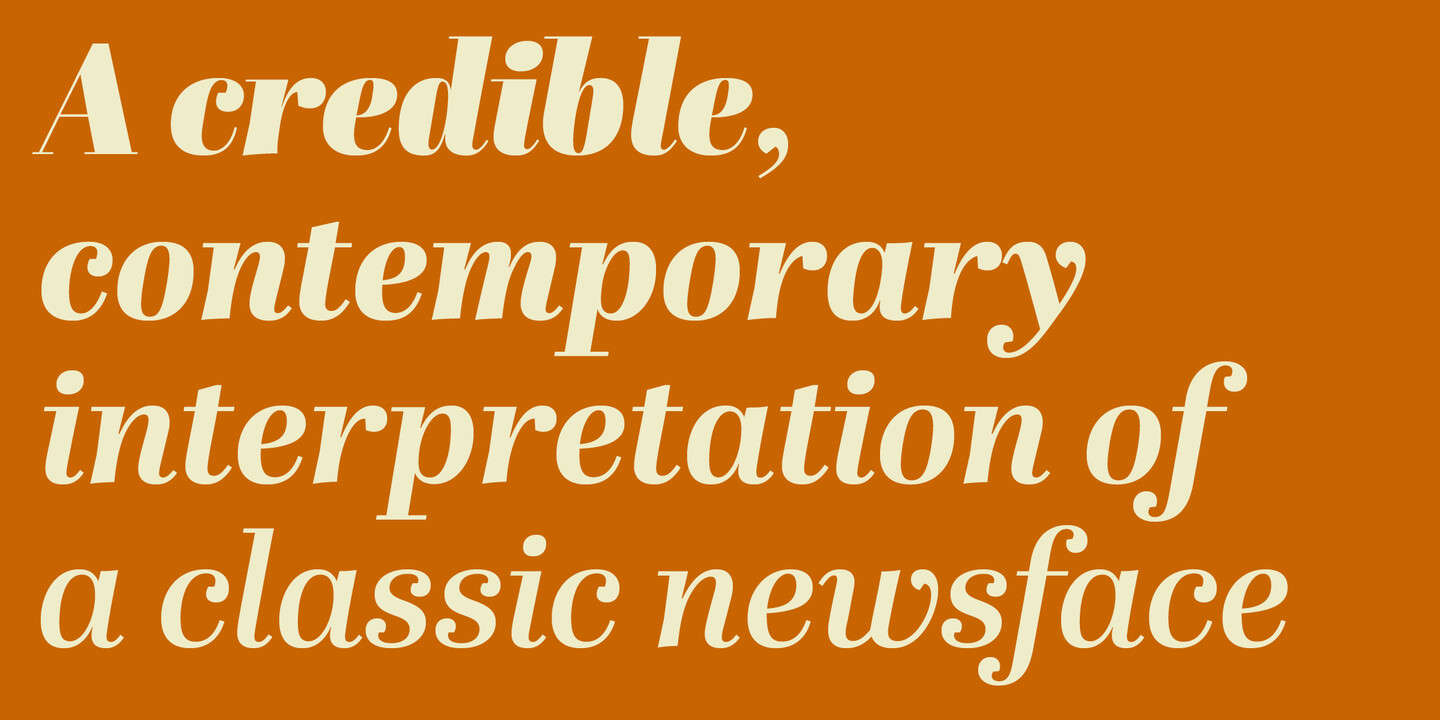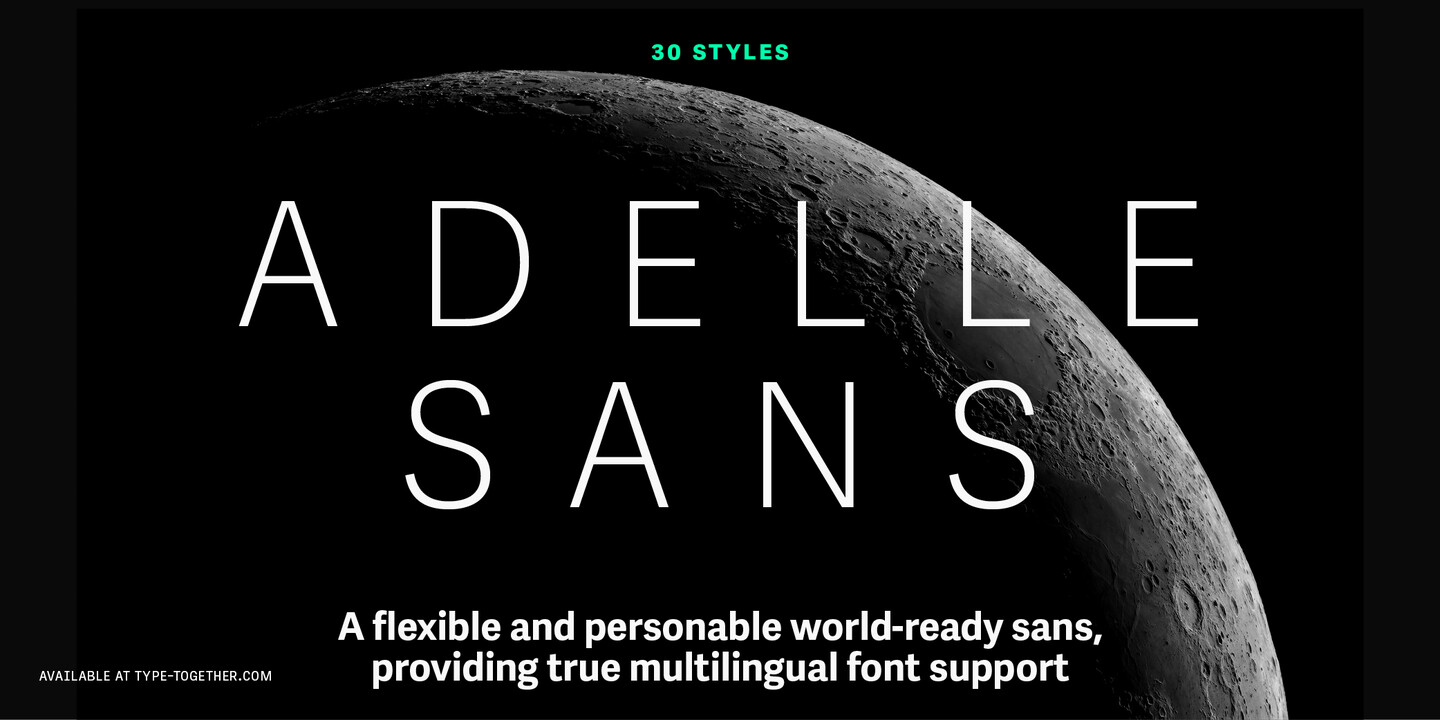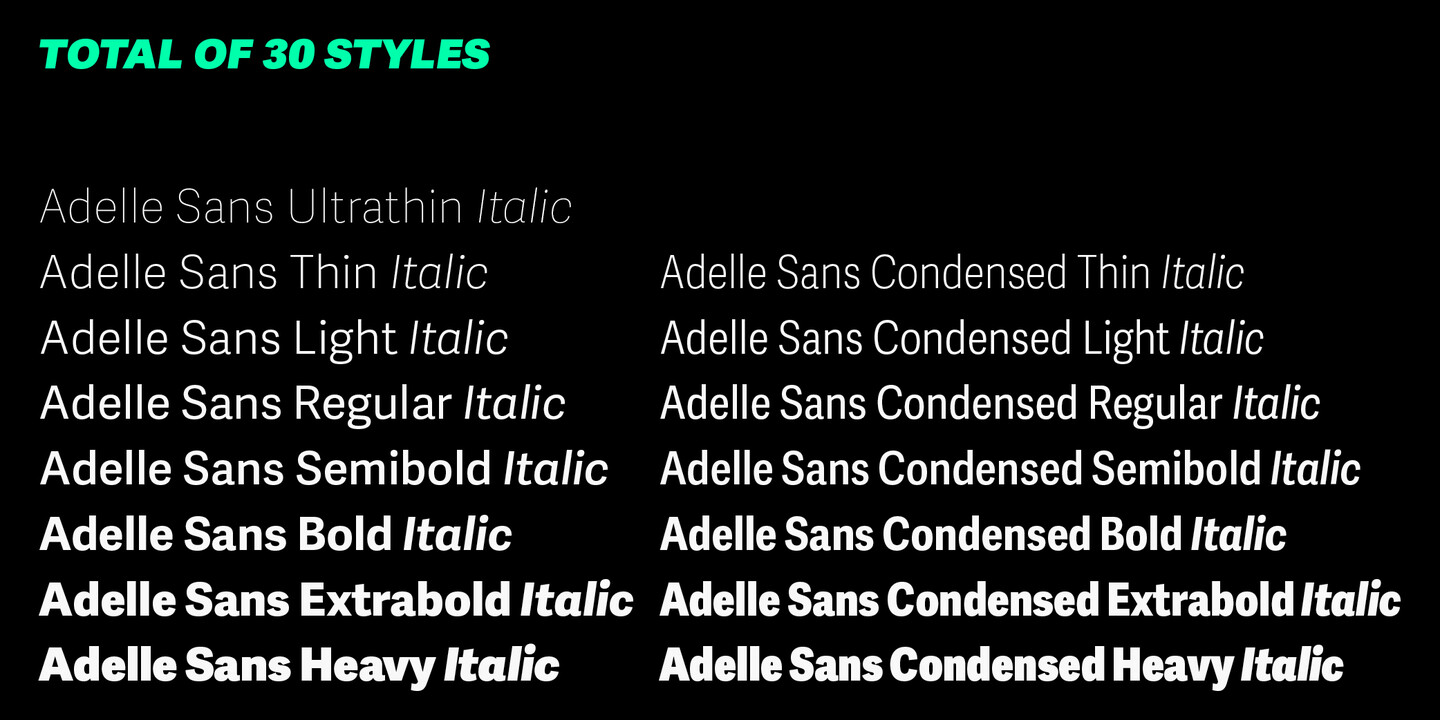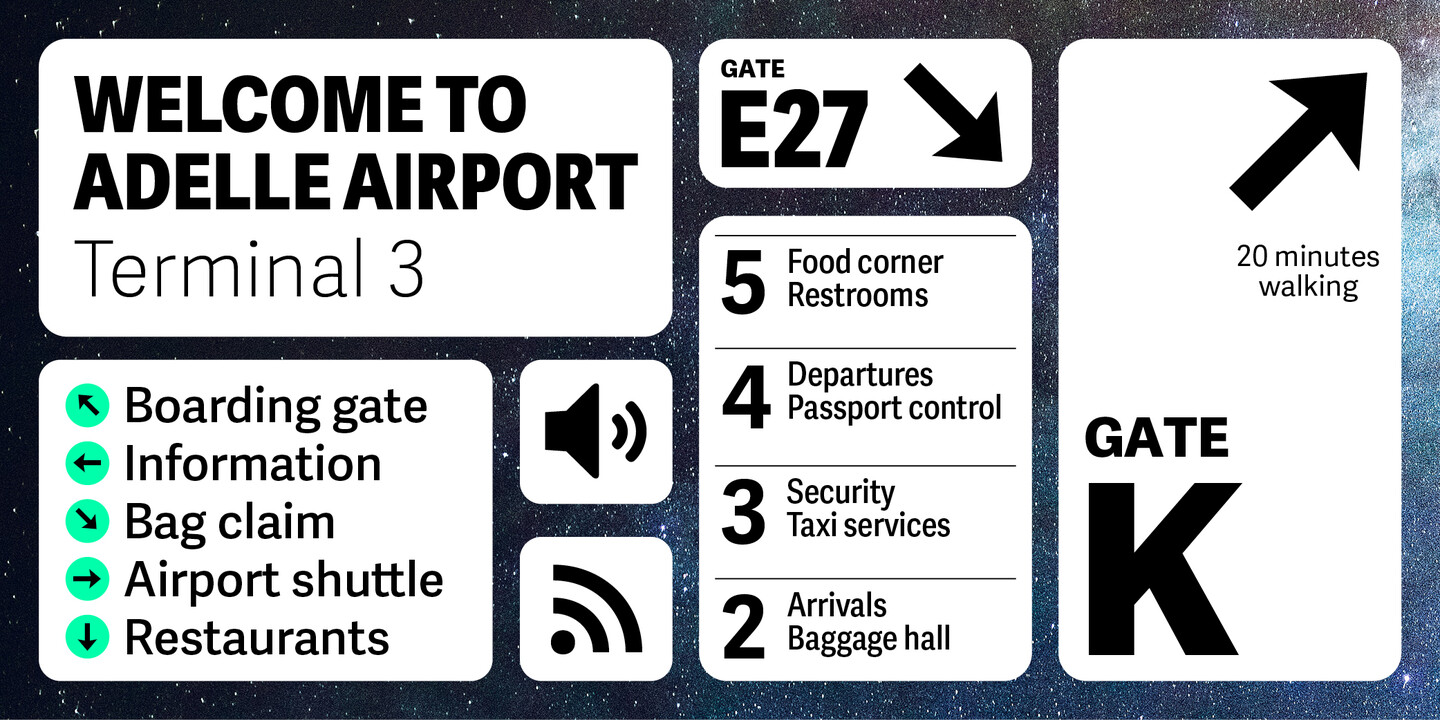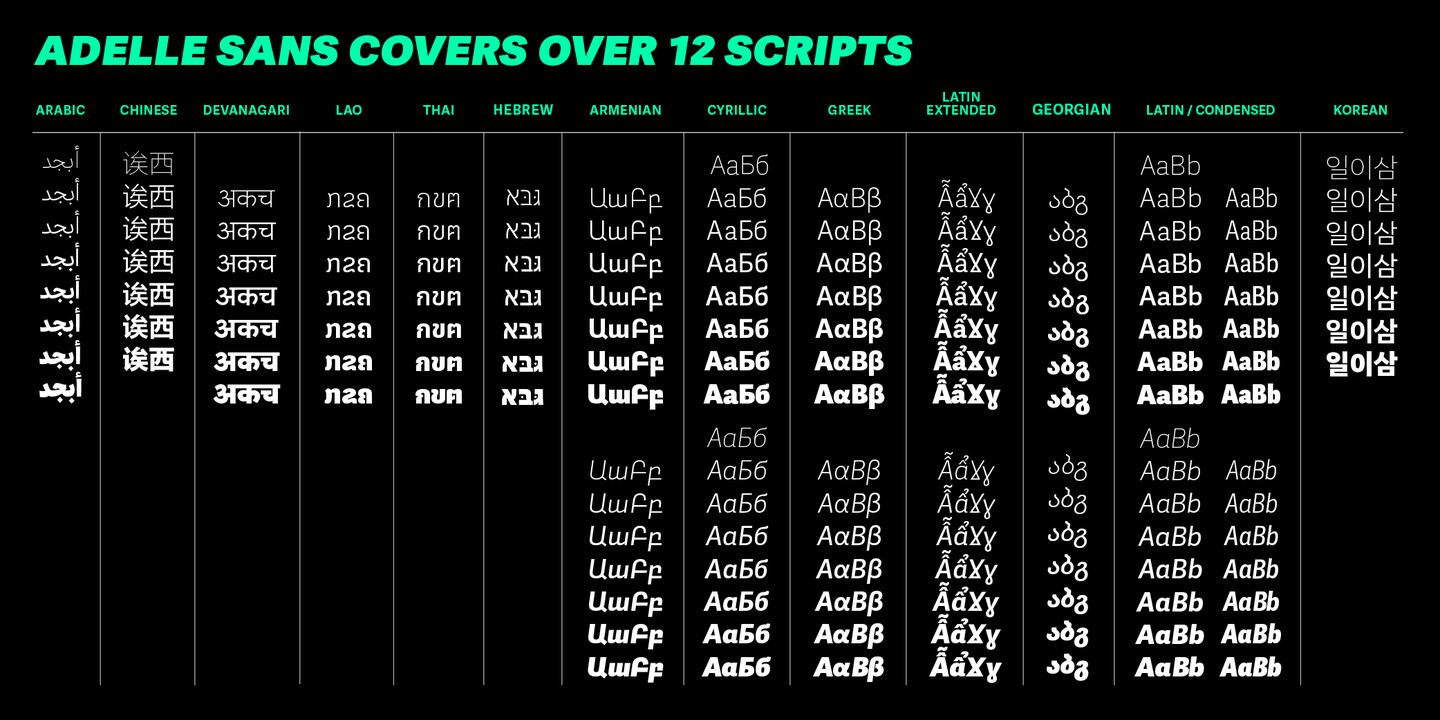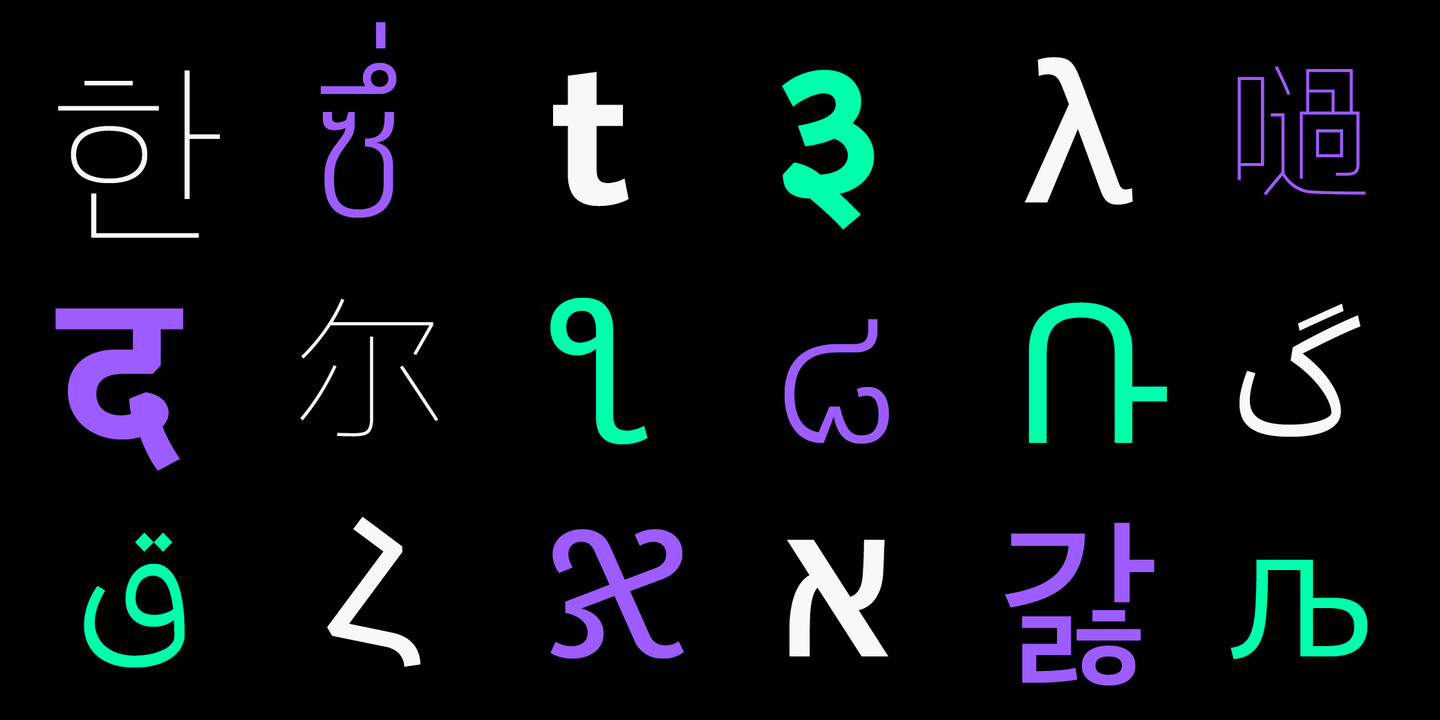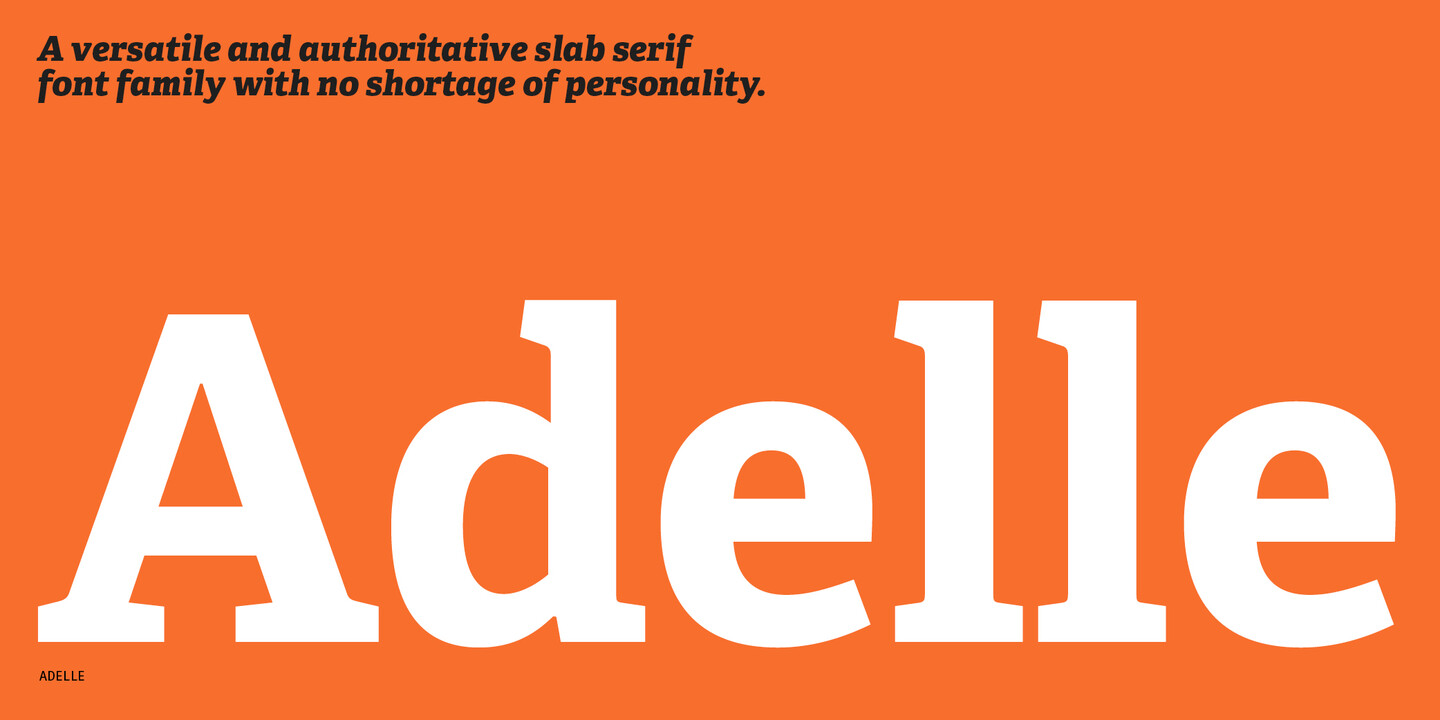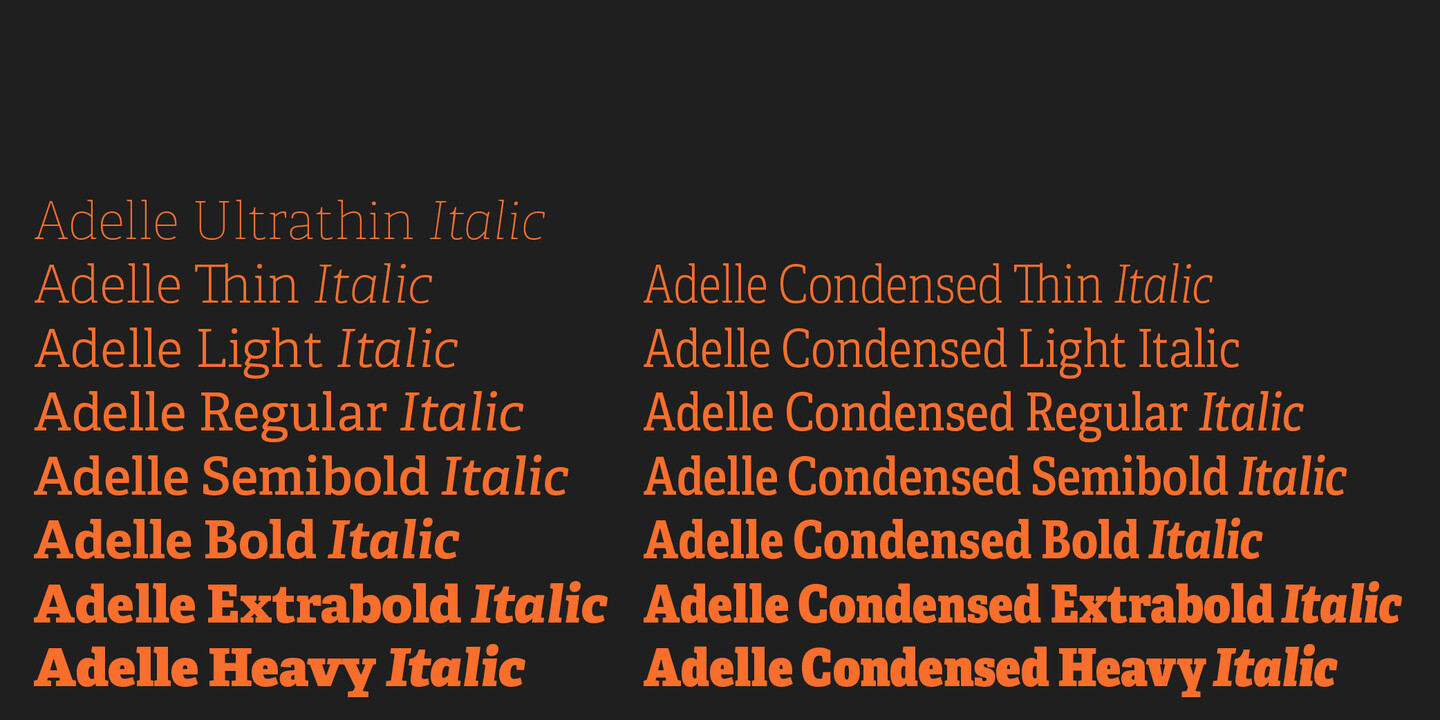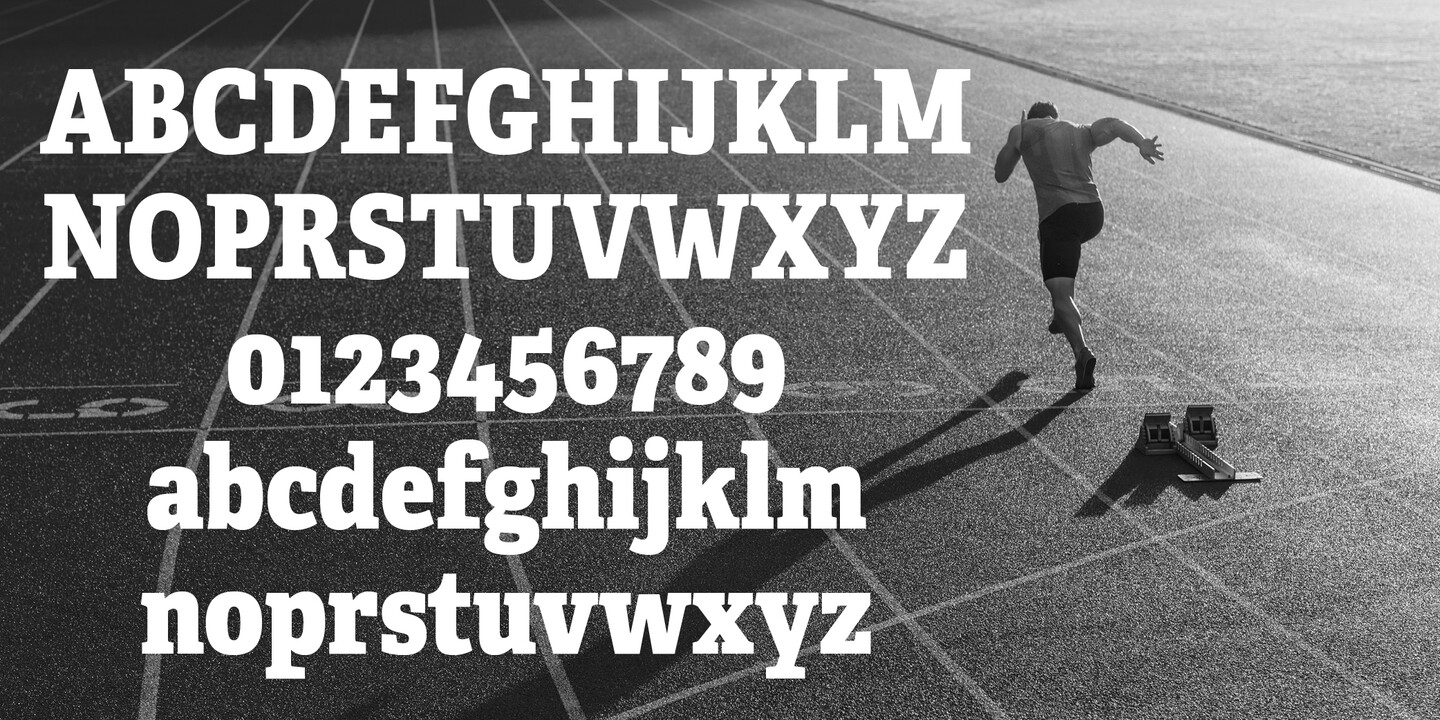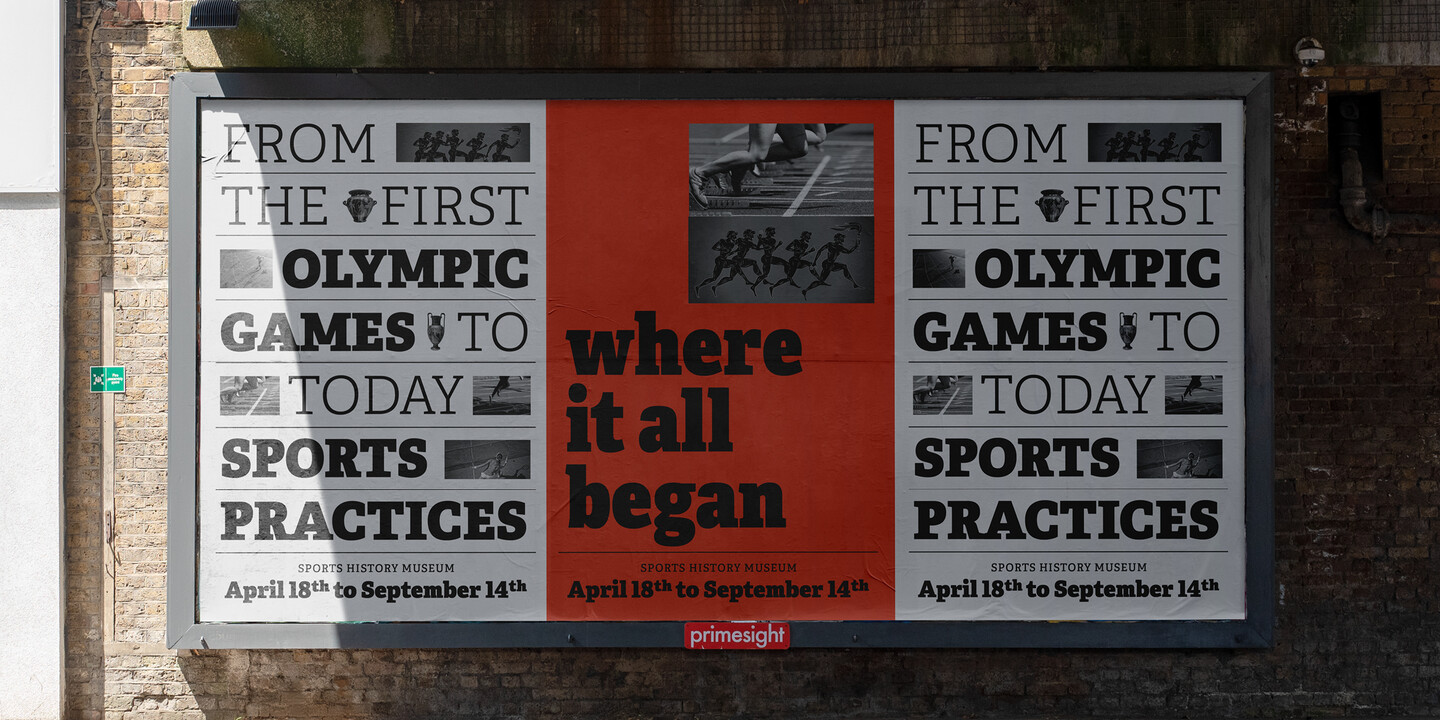
TypeTogether is an independent type foundry with several key commitments: they are knowledgeable, collaborative, global, mindful, and playful. Their knowledge spans the wide but underserved market of multiscript typefaces. Their collaborative and global nature brings experts together from all over the world to serve their clients with excellence. While they are mindful of making a positive impact for people, planet, and across the design world, they take their work seriously, not themselves. Useful and captivating multiscript fonts, collaboratively made for the benefit of all — this is TypeTogether.
The Abril font family is a credible, contemporary interpretation of a classic newsface and was conceived for intensive editorial use in newspapers, magazines, and digital media. The Display styles have a strong presence and a newsy feel on the page while the Text styles were engineered from scratch to achieve the right colour, texture, and overall width for comfortable, continuous reading in printed and digital environments.
While the Adelle font family is a slab serif for intensive editorial use, its personality and flexibility make it a true multipurpose typeface, especially on the web. The unobtrusive appearance, excellent texture, and slightly dark colour allow it to behave flawlessly in continuous text, even in the most unforgiving applications. As it becomes larger in print, the Adelle fonts show personality through a series of measured particularities which make it easy to remember and identify. Adelle is a versatile and authoritative slab serif font family with no shortage of personality.
Type designers: Veronika Burian & José Scaglione
Adelle Sans provides a clean and spirited take on the traditional grotesque sans. Whether for branding, signage, or advertising, the keyword behind Adelle Sans’s use is flexibility. Each of its 30 styles is a perfect match in terms of weight and vertical proportions to its slab serif equivalent, Adelle, ensuring an harmonious fit between both type families in the same block of text and a pleasing change of texture when used at similar point sizes.
Type designers: Veronika Burian & José Scaglione
Bely is Roxane Gataud’s venturesome text font family paired with a fearless display in the French style. Built upon classical proportions to capitalise on reading familiarity, Bely’s four text weights combine comfortable reading with an admirable texture. Bely Display pushes the logic of the text weights to their extreme, resulting in adventurous forms for unforgettable packaging and headlines.
Type Designer: Roxane Gataud
The Bree font family is a spry sans serif that delivers a spirited look and feel for branding and headline usage. As an upright italic, Bree shows a pleasant mix of rather unobtrusive capitals with more vivid lowercase letters, giving text a lively appearance. Bree is clearly influenced by handwriting, has a touch of cheekiness, a wide stance for each character, and an extra-large x-height, which equals a big personality.
Karmina is a serif built to withstand the worst printing conditions: low quality papers, high printing speed with web presses, and variations in the ink level of the printing press. The cumulative result of its features grants Karmina outstanding legibility and economy, perfect for extended reading in editorials and newspapers.
Type designers: Veronika Burian & José Scaglione
LFT Etica fills the astute designer’s needs by obtaining the same versatility and colour as common grotesque faces, but with a much warmer feel. It successfully combines forcefulness and delicacy, wrapping both with sober charm. LFT Etica has become a de facto choice for web design and has proven versatile in applications where the ratio between information and space becomes an important challenge.
Type designer: Leftloft
TypeTogether is an independent type foundry specializing in high-quality text typography for digital and print editorial use. With a global team and a strong network of collaborators, we create innovative, stylish solutions for the professional typography market. Our curated font platform and custom type services help organizations establish a unique voice through bespoke typefaces, logotypes, and language extensions. Recognized for aesthetic and technical excellence, our award-winning catalogue continues to grow, supporting diverse languages and scripts.
Communication Manager & Art Editor
Elena Veguillas
Elena Veguillas is a Spanish graphic designer, writer, publisher, and researcher based in London, with a special interest in public lettering.
Co-founder, Type Director
José Scaglione
José Scaglione is an Argentinian typeface designer, lecturer, and writer who specialises in typography. He co-founded the independent type foundry TypeTogether with Veronika Burian, where they have published numerous award-winning, multiscript font families and custom typeface designs for respected global brands. In 2011 José chaired the Letter.2 type design competition and conference, and he served as president of the Association Typographique Internationale
Co-founder, Managing Type Director
Veronika Burian
Veronika Burian is a product and type designer who has run the international indie foundry TypeTogether with business partner José Scaglione since 2006. She is one of the organisers of the Alphabettes mentorship program, co-chairwoman of the Granshan project, co-curator and organiser of TypeTech MeetUp, and guest lecturer at the Faculty of Architecture and Design ntnu in Norway. She also loves to tango, grow vegetables, and climb on rocky walls.